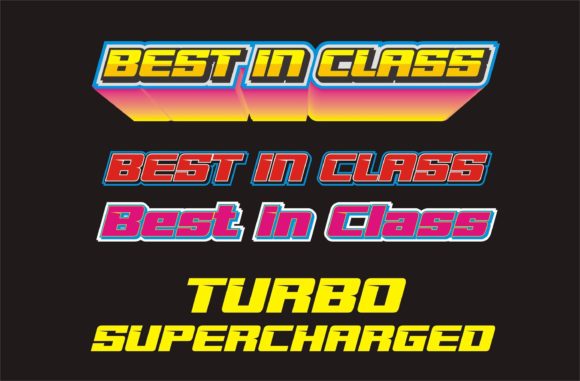
Discover the Ultimate Design Experience with Best in Class Font
Are you a designer, crafter, or creative enthusiast looking for a versatile font that can elevate your projects to the next level? Look no further than the Best in Class Font! This stunning design is perfect for racing projects, but its incredible flexibility means it can be used for a wide range of applications, limited only by your imagination.
Unleash Your Creativity with Best in Class Font
Best in Class Font is more than just a font – it’s a design experience. Its uniquely crafted style is both elegant and eye-catching, making it perfect for creating beautiful stationary art, social media posts, and so much more. Whether you’re a seasoned designer or a crafty hobbyist, this font is sure to inspire you to new creative heights.
So, what makes Best in Class Font so special? Here are just a few reasons why designers and crafters love this amazing font:
- Versatility: Best in Class Font is incredibly versatile, making it perfect for a wide range of projects, from racing designs to beautiful stationary art.
- Elegant Style: This font features an elegant, sophisticated style that’s sure to impress.
- High-Quality: This font is crafted with precision and attention to detail, ensuring a high-quality design that will make your projects stand out.
Ideas for Using Best in Class Font
So, what can you create with Best in Class Font? The possibilities are endless! Here are a few ideas to get you started:
- Stationary Art: Use Best in Class Font to create beautiful greeting cards, invitations, and other stationary art.
- Social Media Posts: Make your social media posts stand out with this eye-catching font.
- Racing Designs: Best in Class Font is perfect for racing projects, including car decals, helmets, and more.
- Signs and Banners: Use this font to create eye-catching signs and banners for events, businesses, and more.
Best in Class Font is a game-changer for designers, crafters, and creative enthusiasts. Its incredible versatility, elegant style, and ease of use make it the perfect font for a wide range of projects. Whether you’re looking to create beautiful stationary art, eye-catching social media posts, or stunning racing designs, Best in Class Font is the perfect choice. So why wait? Fall in love with this amazing font and unleash your creativity today!